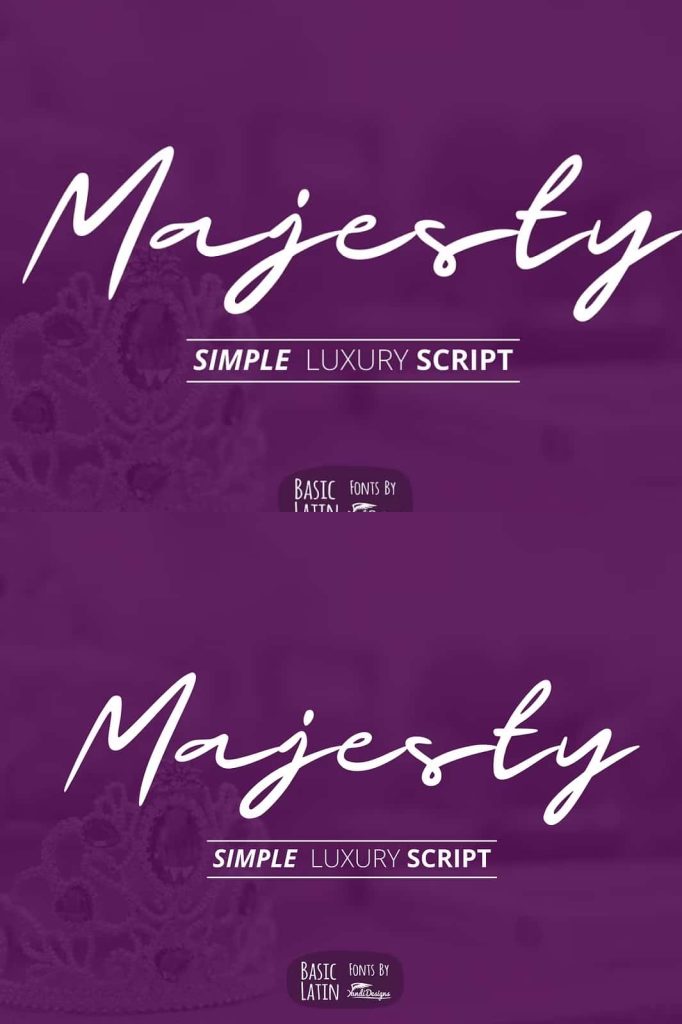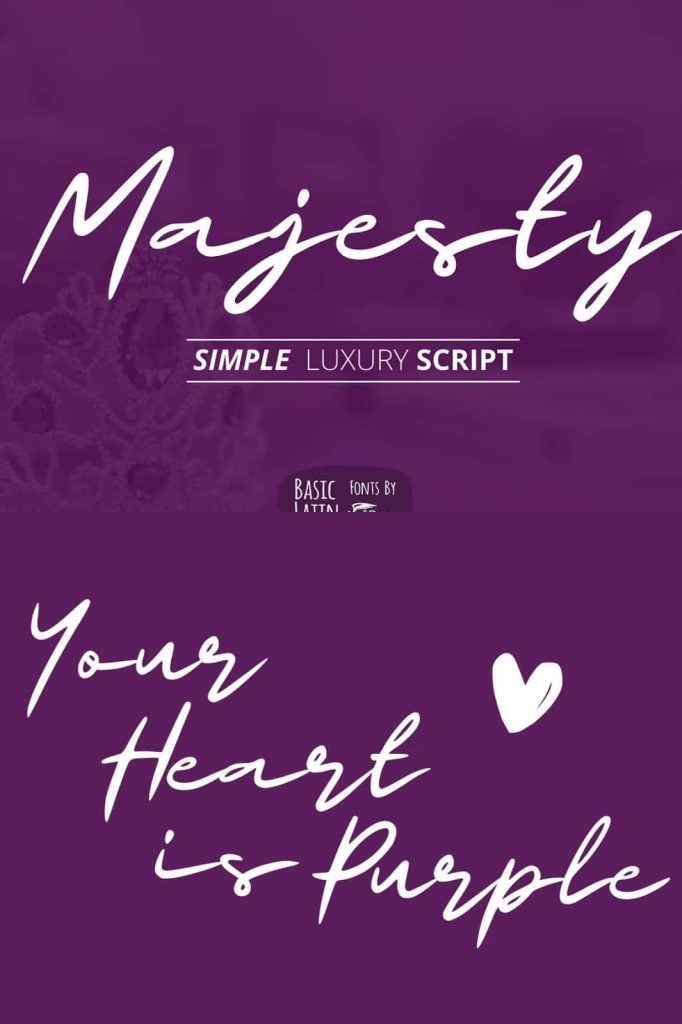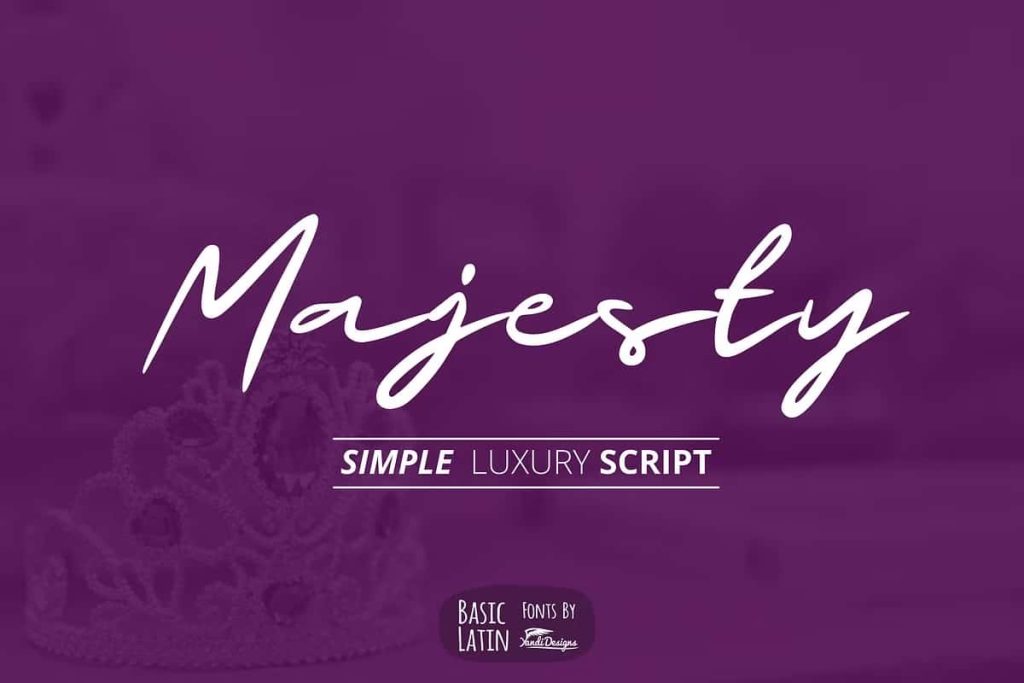
Majesty Luxury FontleastedJanuary 1, 2025Fonts Majesty Font Simple and luxury script , suitable for many project , quotes, logo , doodle, heading , title etc. Download